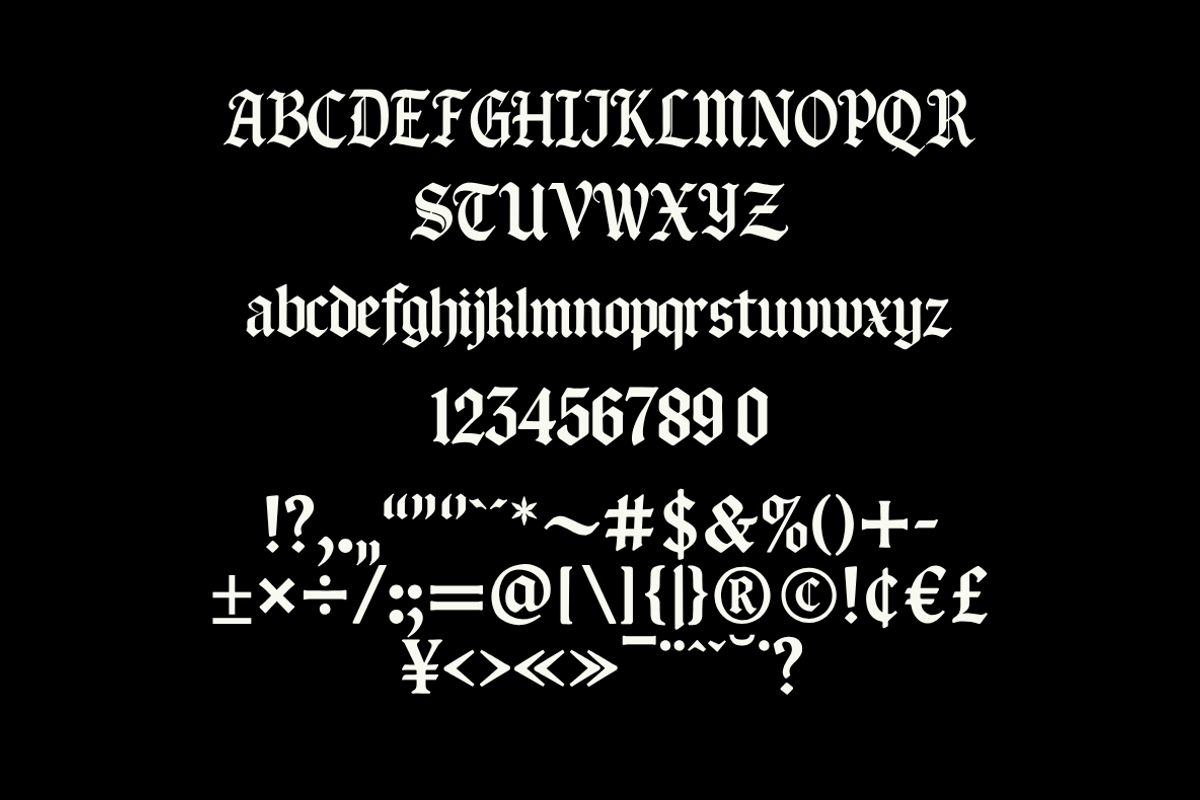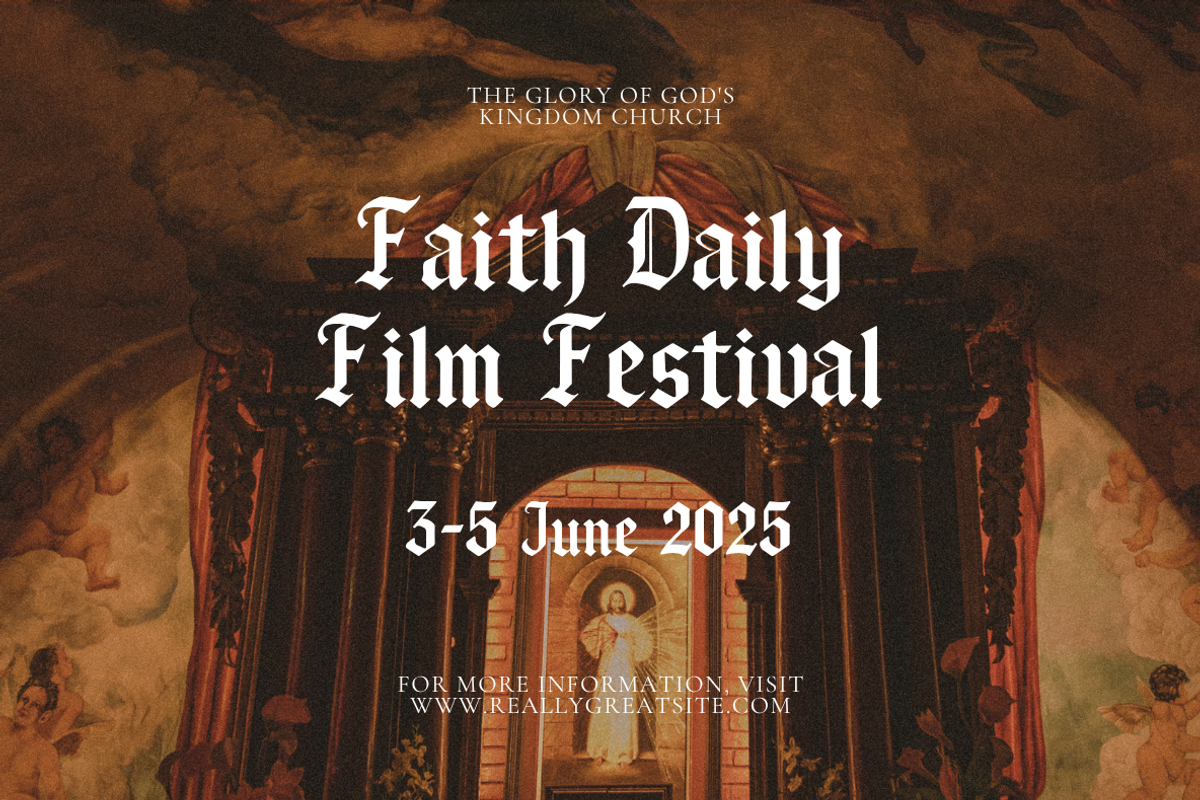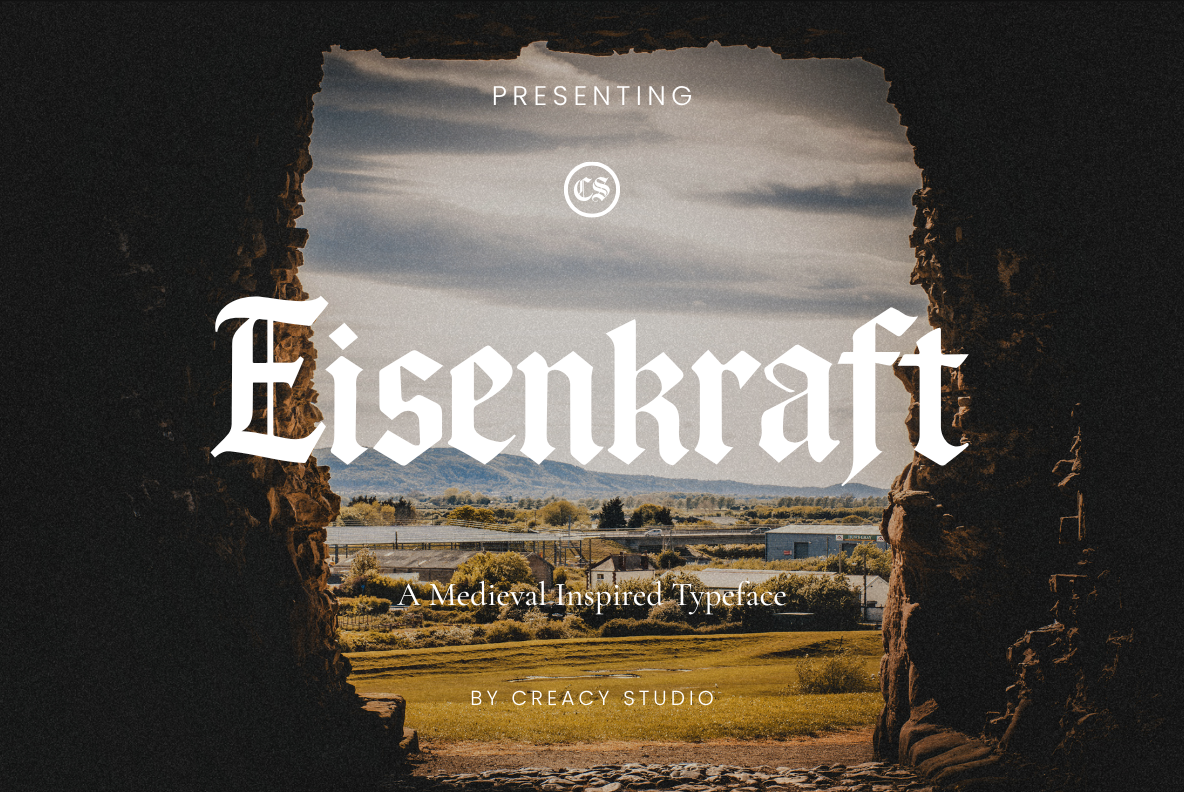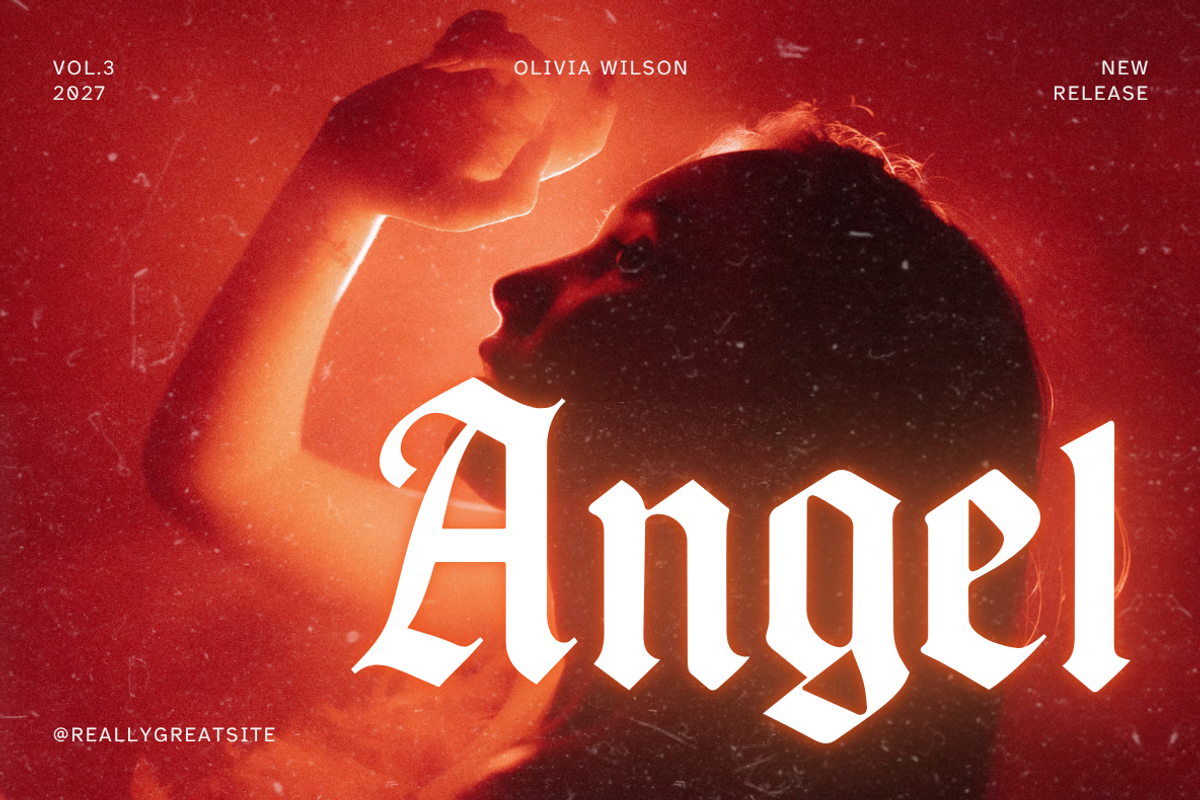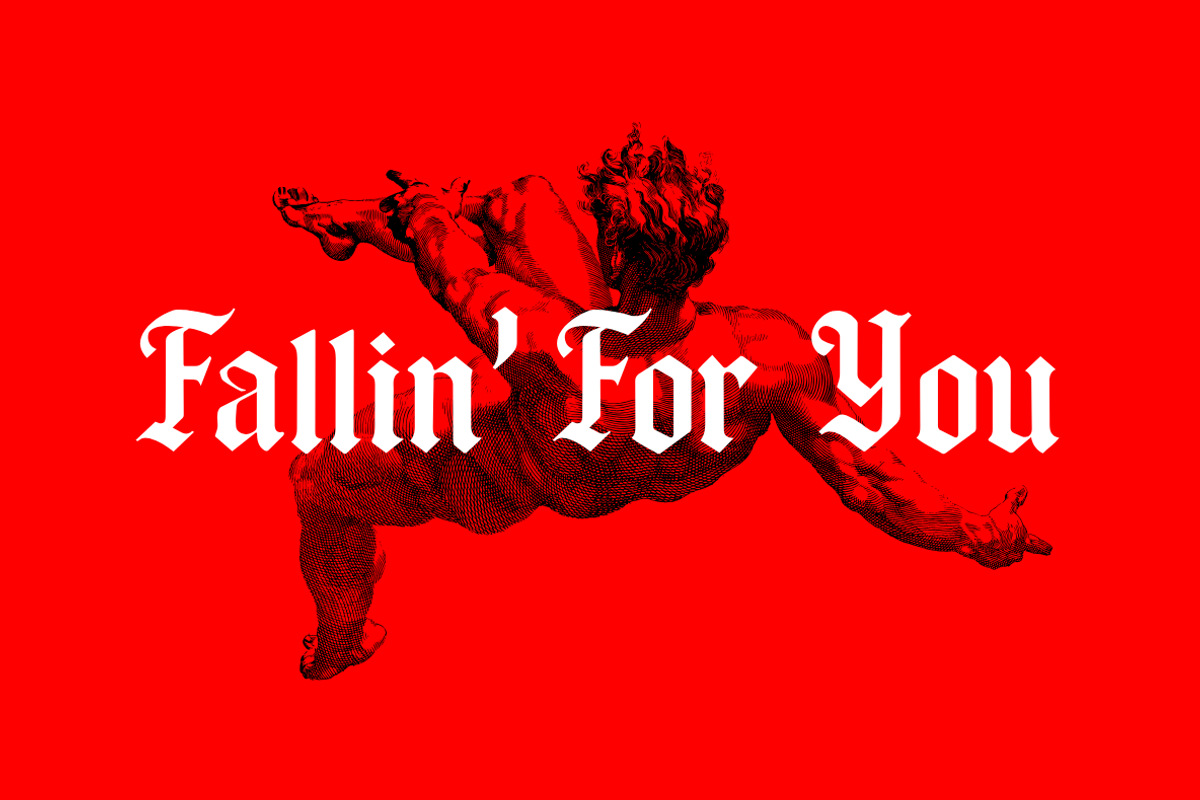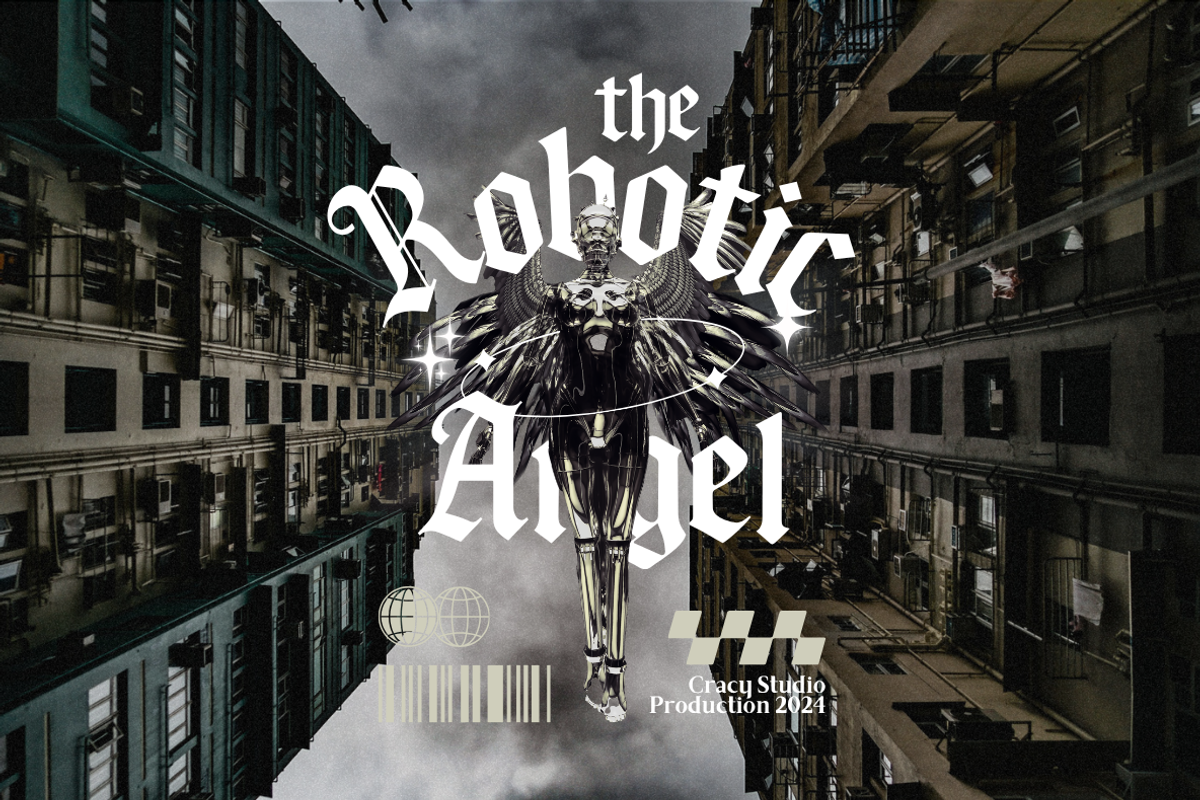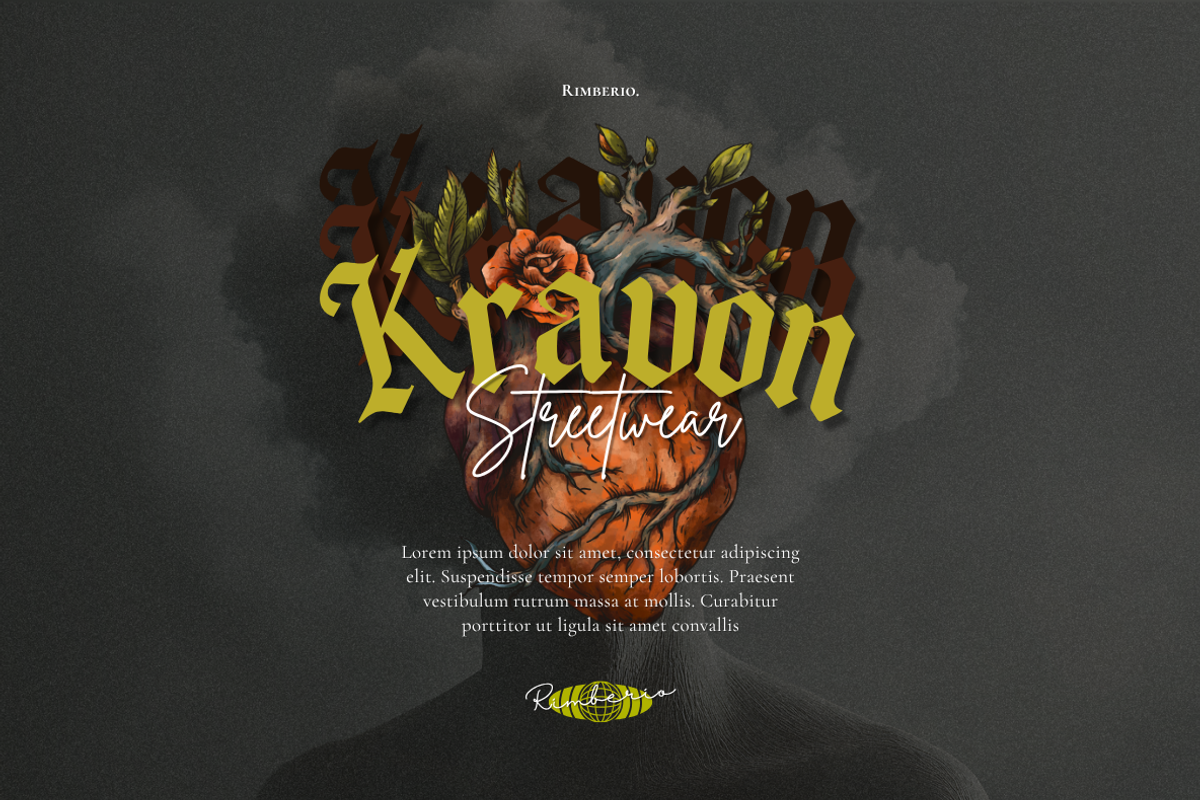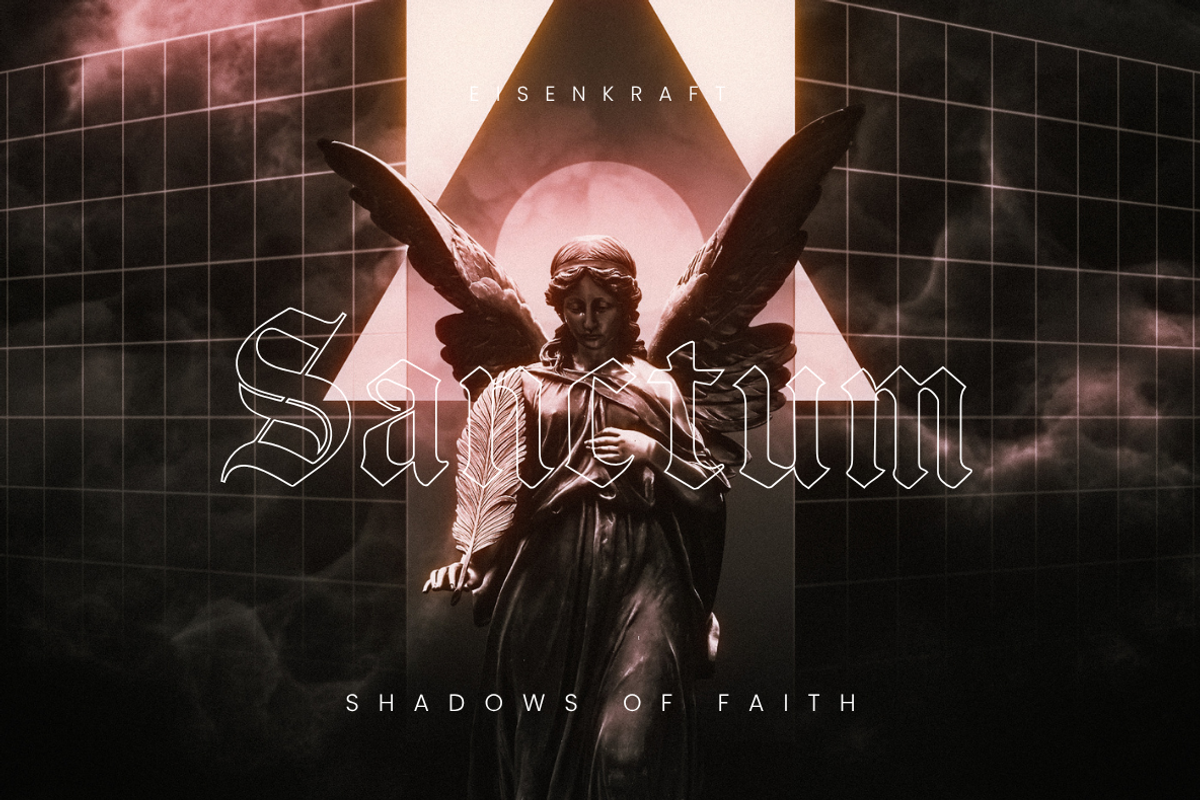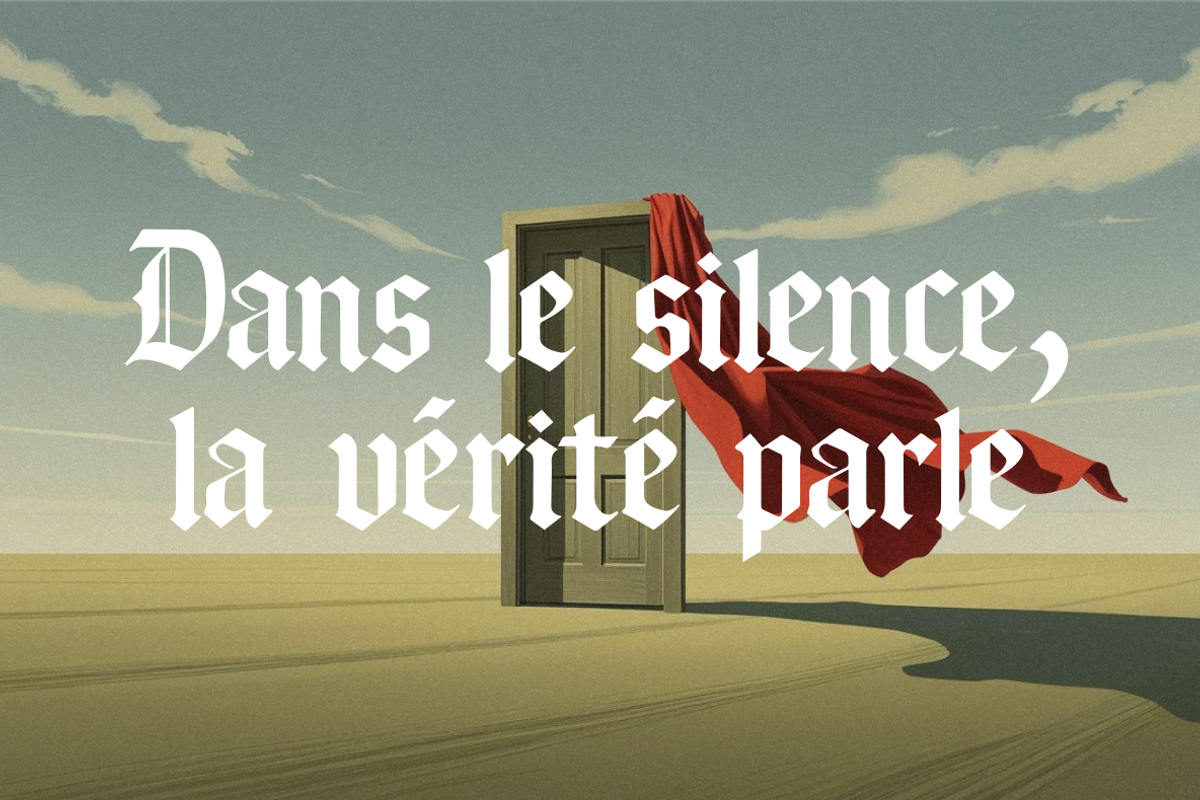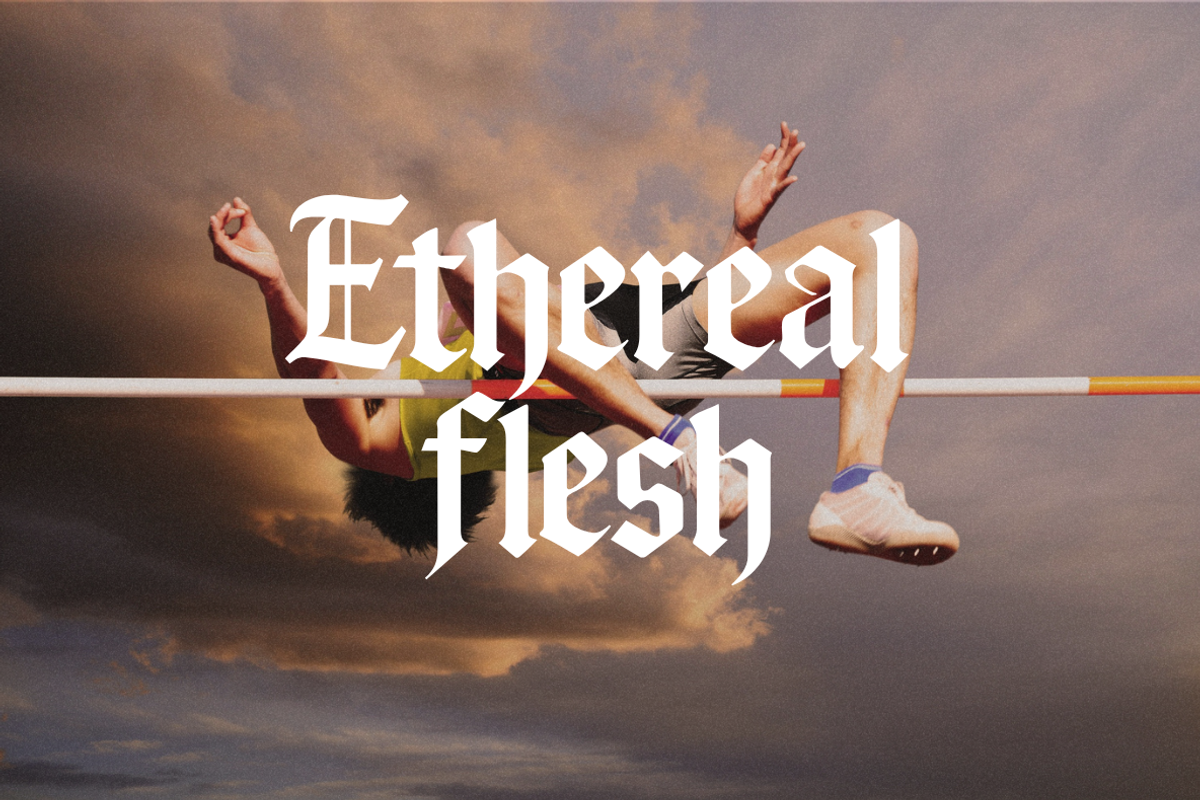
Eisenkraft – Blackletter Font
Eisenkraft is a modern blackletter typeface infused with medieval elegance. Featuring bold letterforms, sharp contrasts, and timeless gothic aesthetics, this font brings a dramatic yet refined presence to any design project.
Perfectly balancing historic inspiration with contemporary usability, Eisenkraft adds a striking character to your visuals—whether for branding, editorial layouts, or bold artistic statements.
✦ Features:
Complete uppercase & lowercase letters
Numbers (0–9)
Punctuation, symbols, and multilingual support
Strong contrasts and highly legible design
✦ Best for:
Posters & album covers
Fashion and streetwear branding
Event & festival identity
Editorial and magazine layouts
Modern gothic-inspired artwork
Bring medieval power and timeless character to your next project with Eisenkraft.